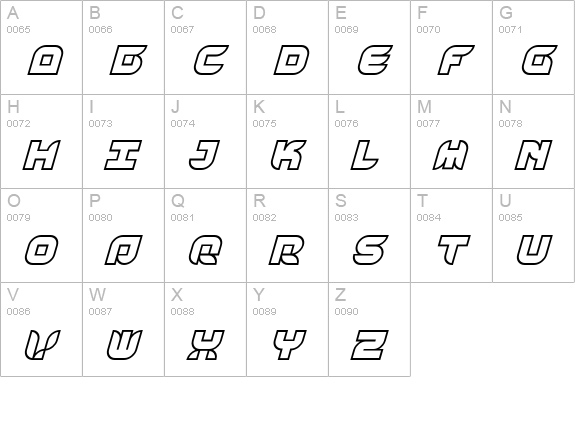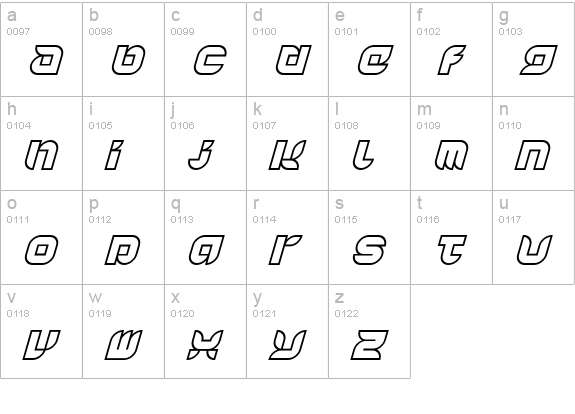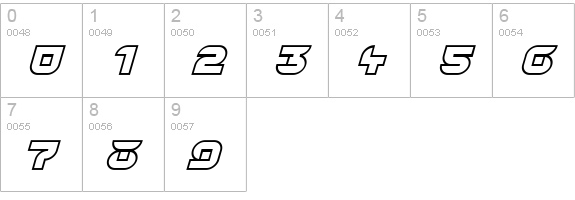
Yr72-OutlineItalic Font Details
Yr72-OutlineItalic font is a sleek and modern typeface that combines elegance with a touch of edginess. The unique outline design gives it a distinct appearance that is perfect for creating eye-catching headers, logos, and branding materials. Its italic style adds a sense of dynamism and sophistication to any project. This font is not only visually appealing but also versatile, making it suitable for a wide range of design applications. Whether you're working on a website, poster, or social media graphics, Yr72-OutlineItalic font will help you stand out from the crowd. Best of all, Yr72-OutlineItalic font is completely free to download at FontsMarket.com. You can add this stylish typeface to your font collection without any cost, making it an excellent choice for both personal and commercial projects. Don't miss out on this fantastic opportunity to elevate your designs with Yr72-OutlineItalic font!